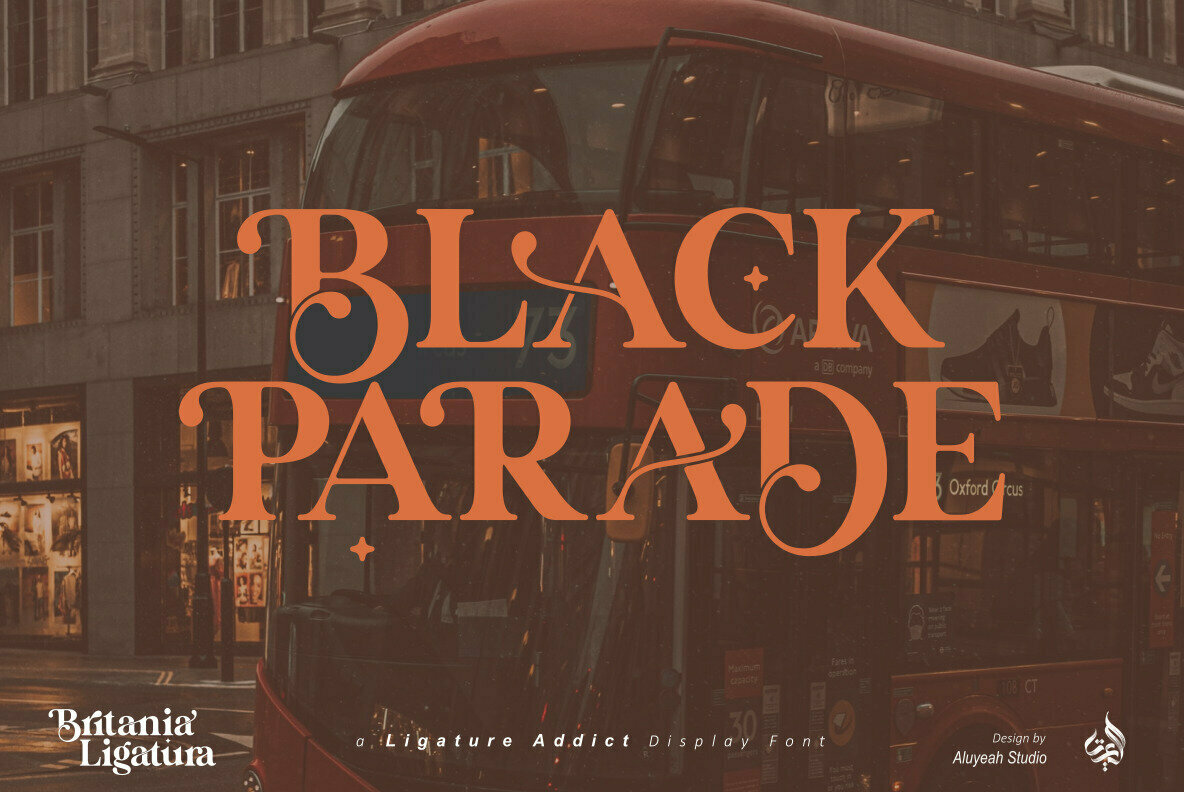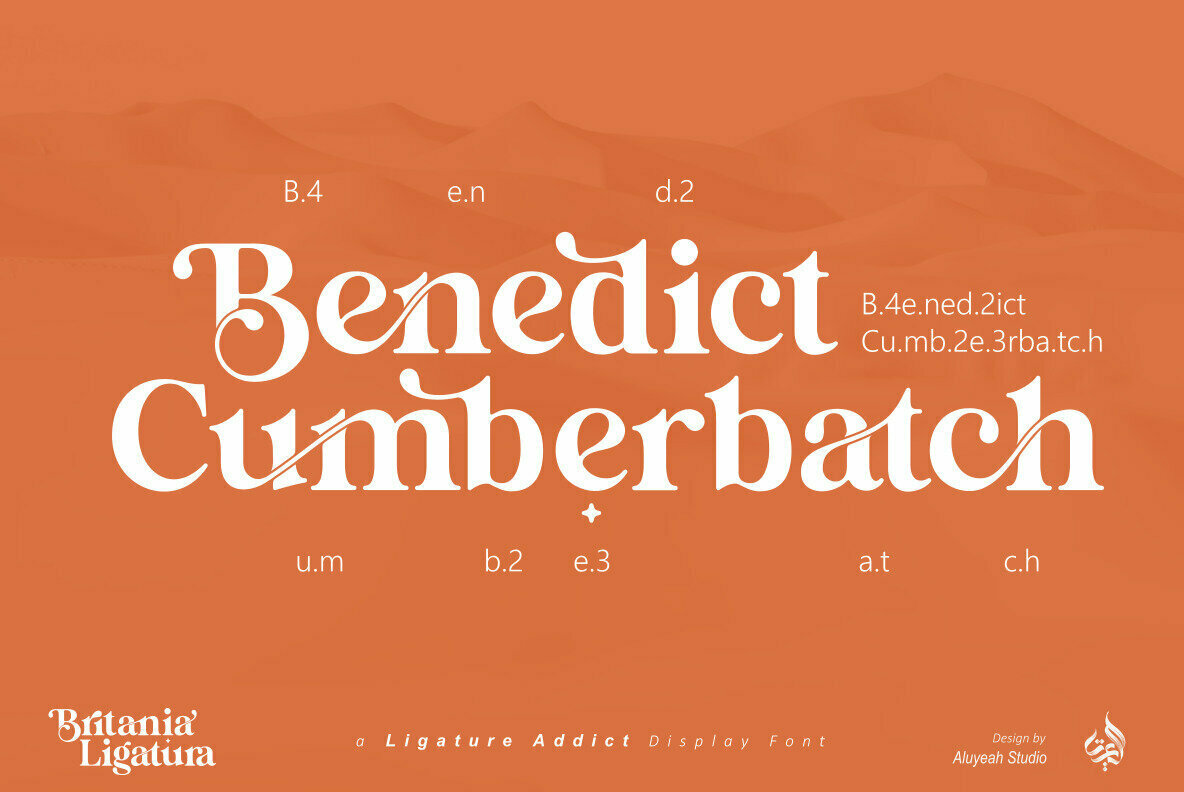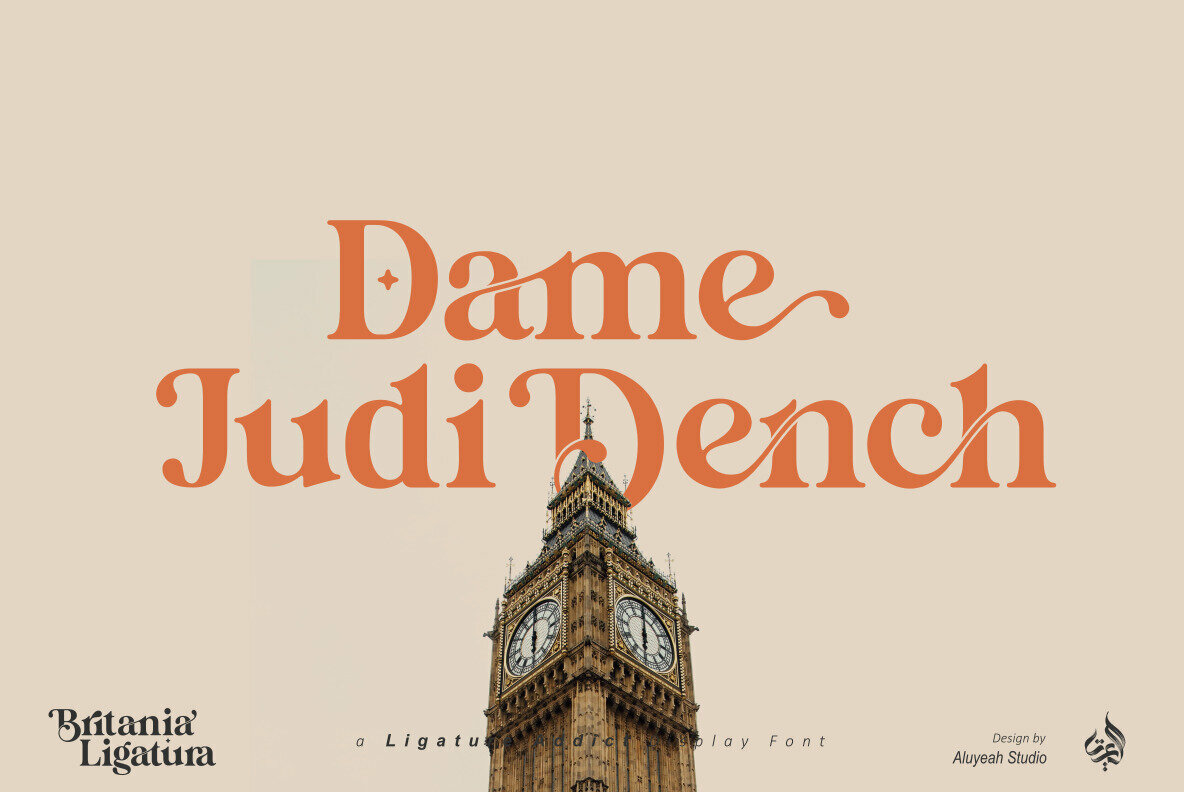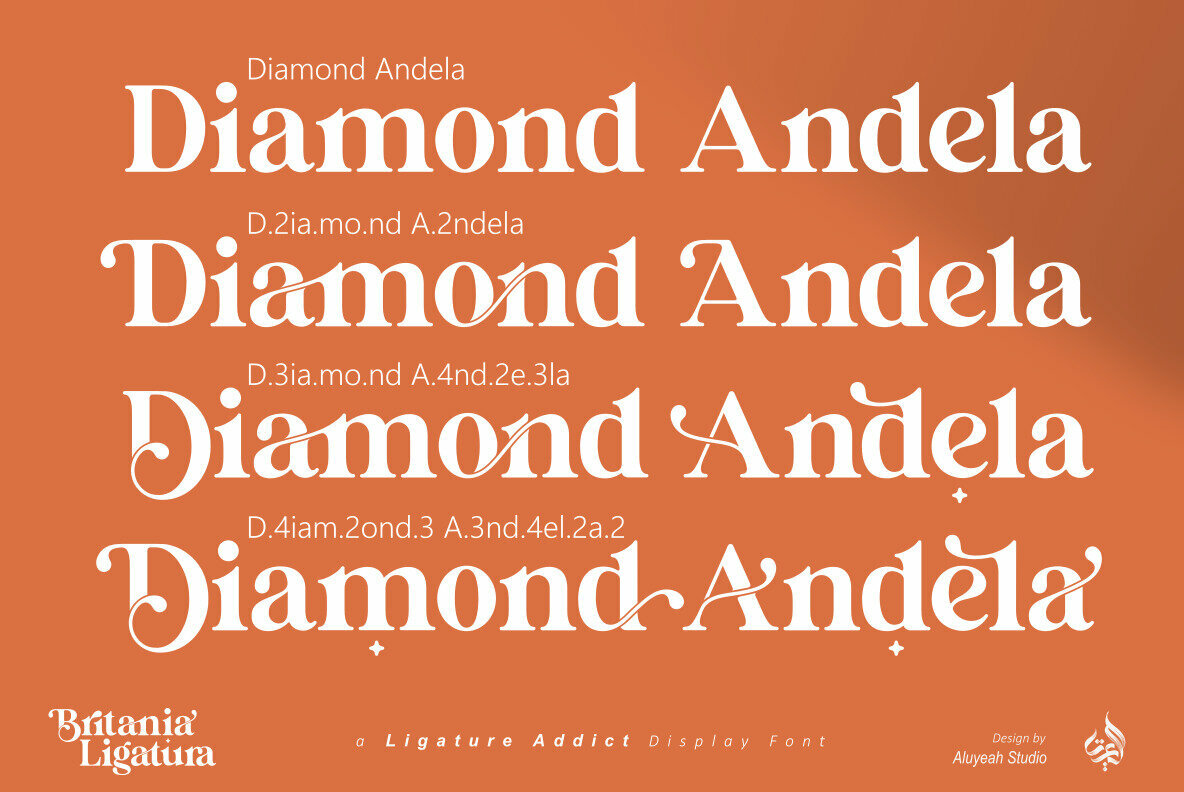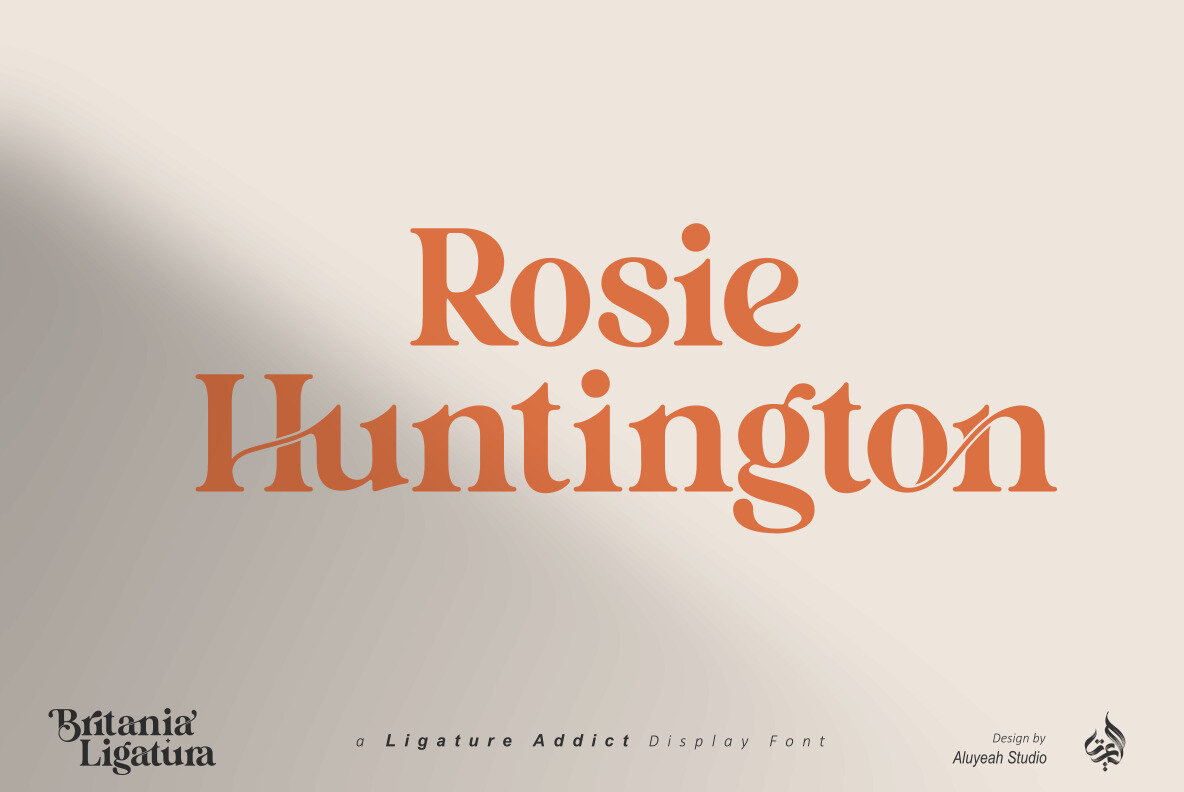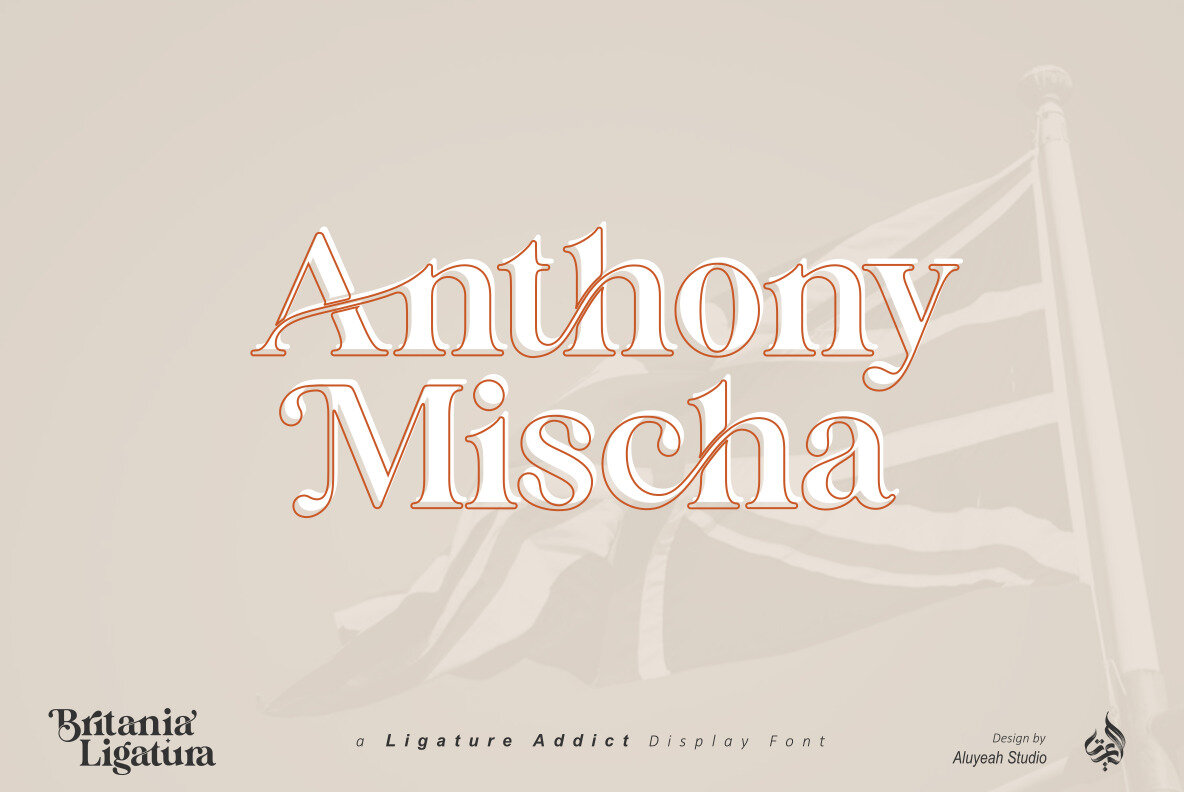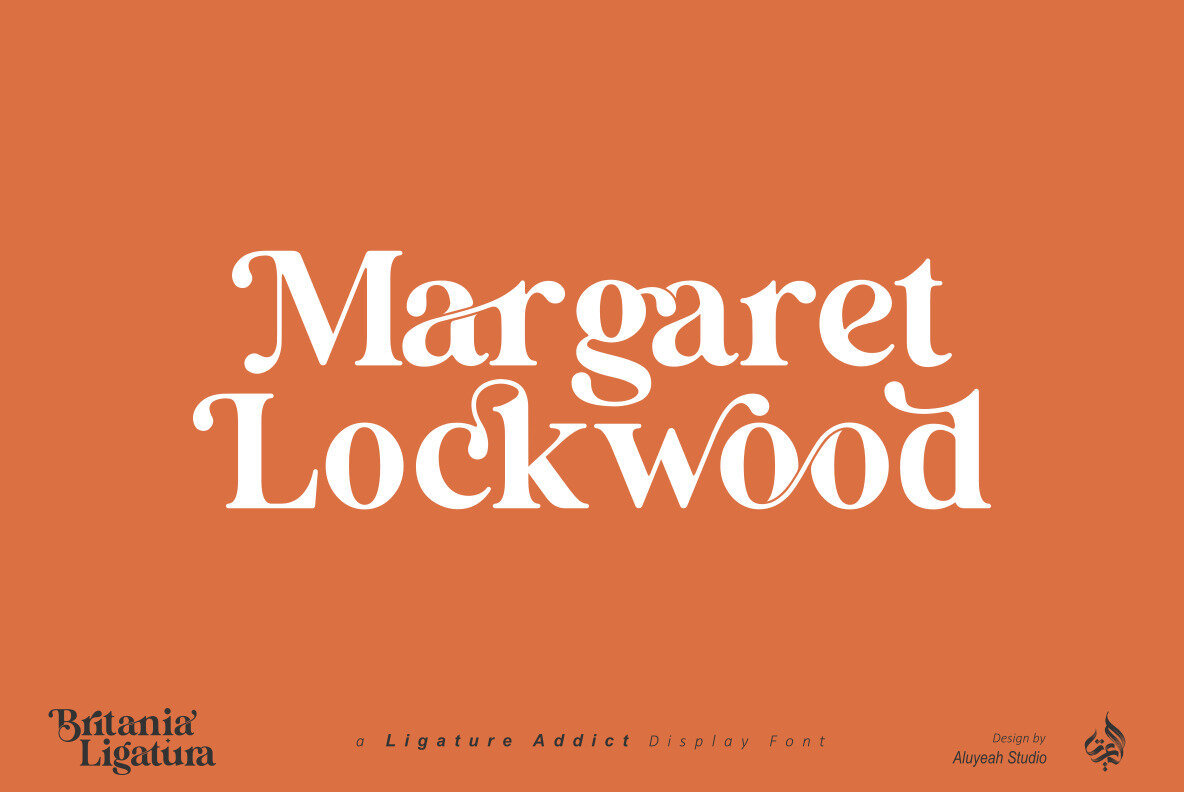
Britania Ligatura Font
Britania Ligatura by Aluyeah Studio captivates with its luxurious array of over 170 alternate characters and ligatures, designed to offer a perfect blend of fashion and elegance in display typography. Whether you're crafting an exclusive logo or a striking header, this font elevates your design to a new standard of sophistication. Unlock stunning results just by typing unique sequences like B.4r.ita.ni.2a.2 Liga.tur.a, transforming text into art with grace and precision.Britania Ligatura: A Ligature Addict's Dream